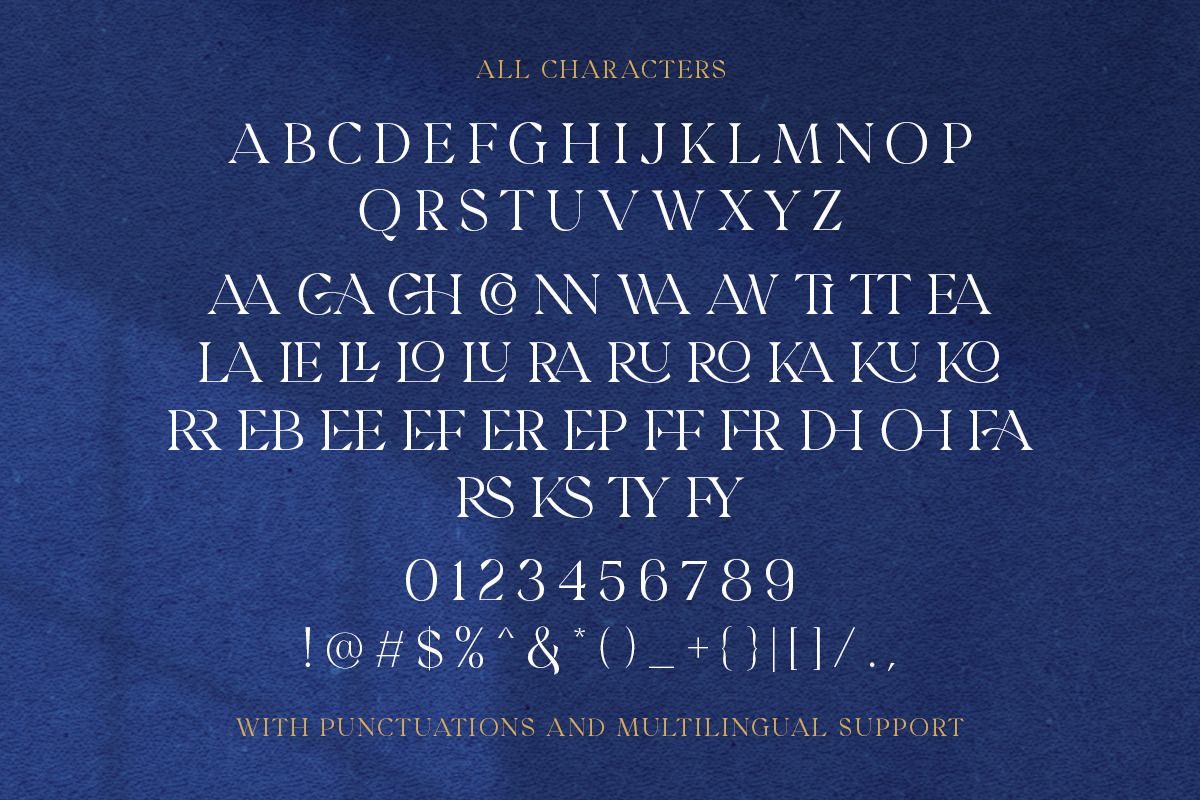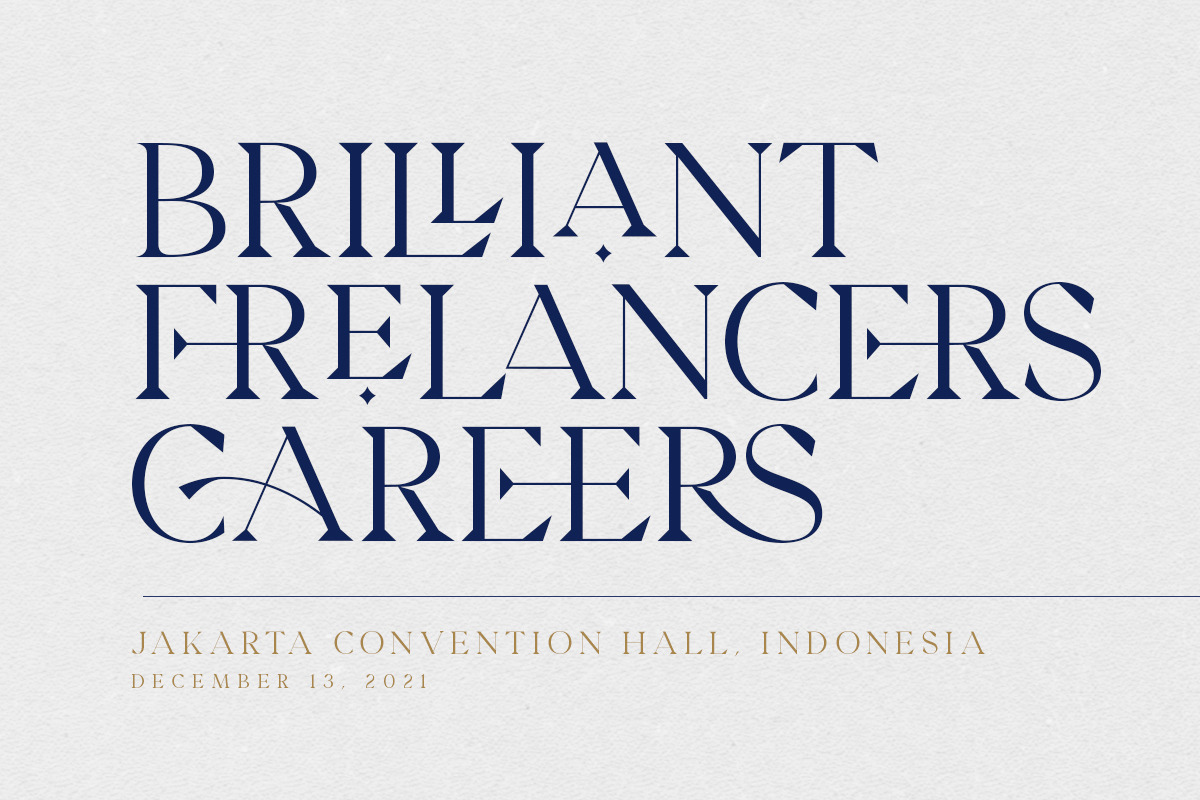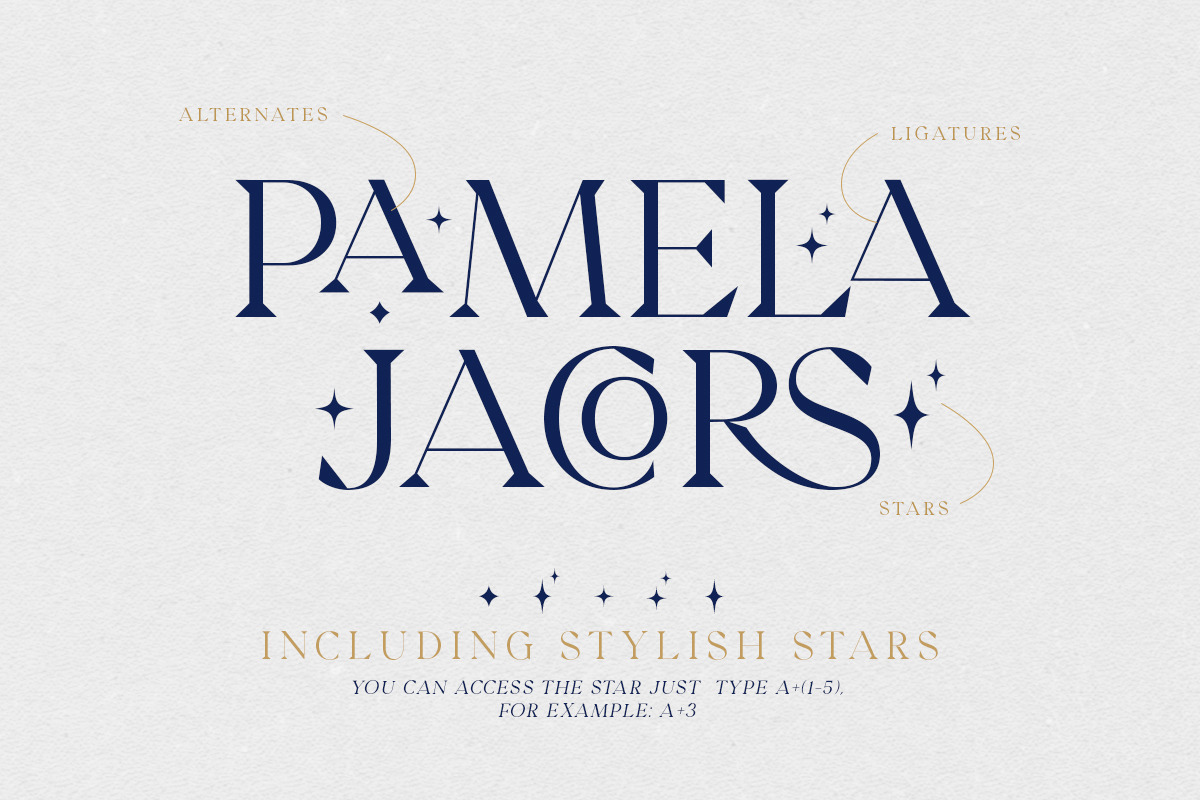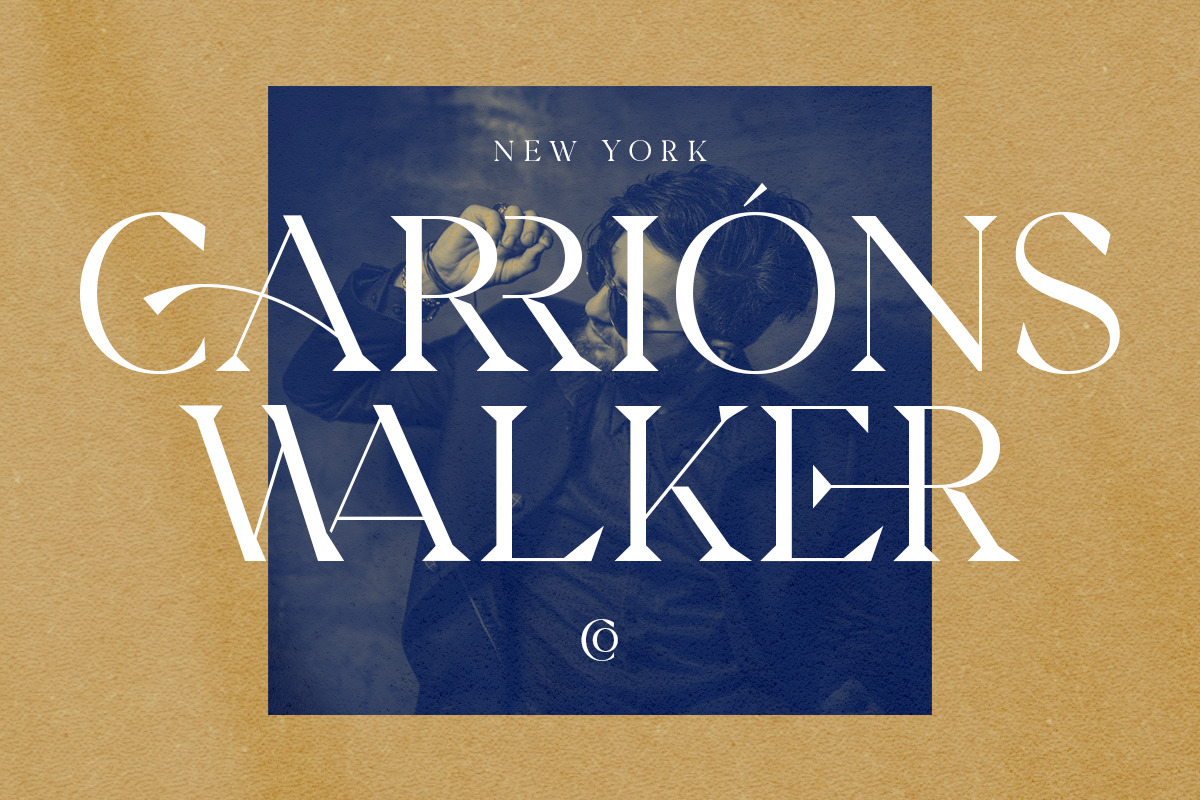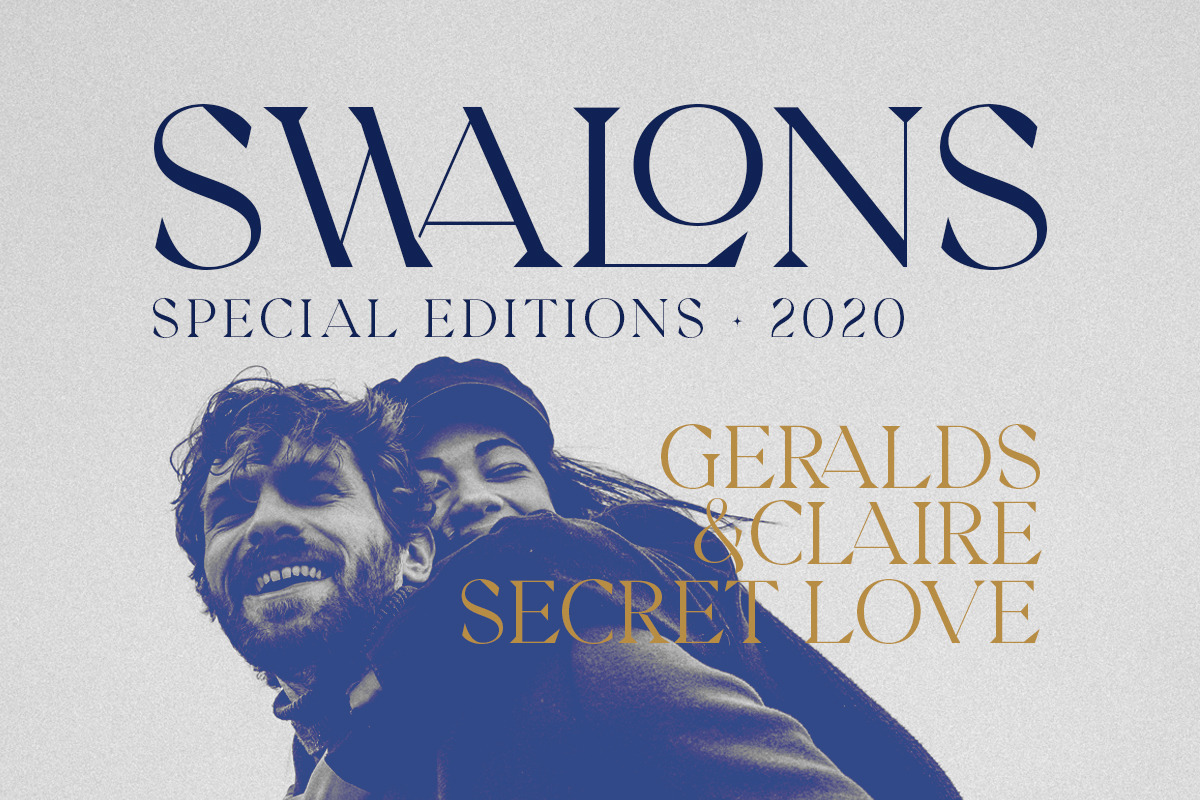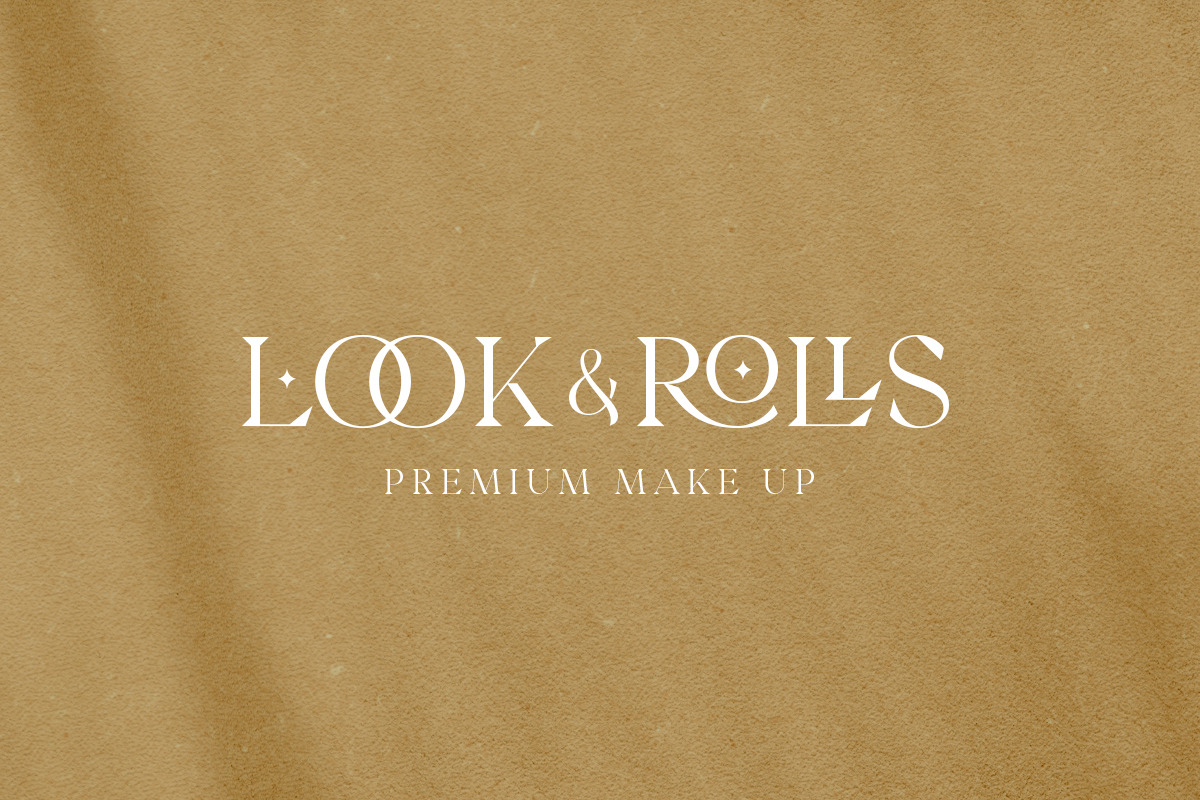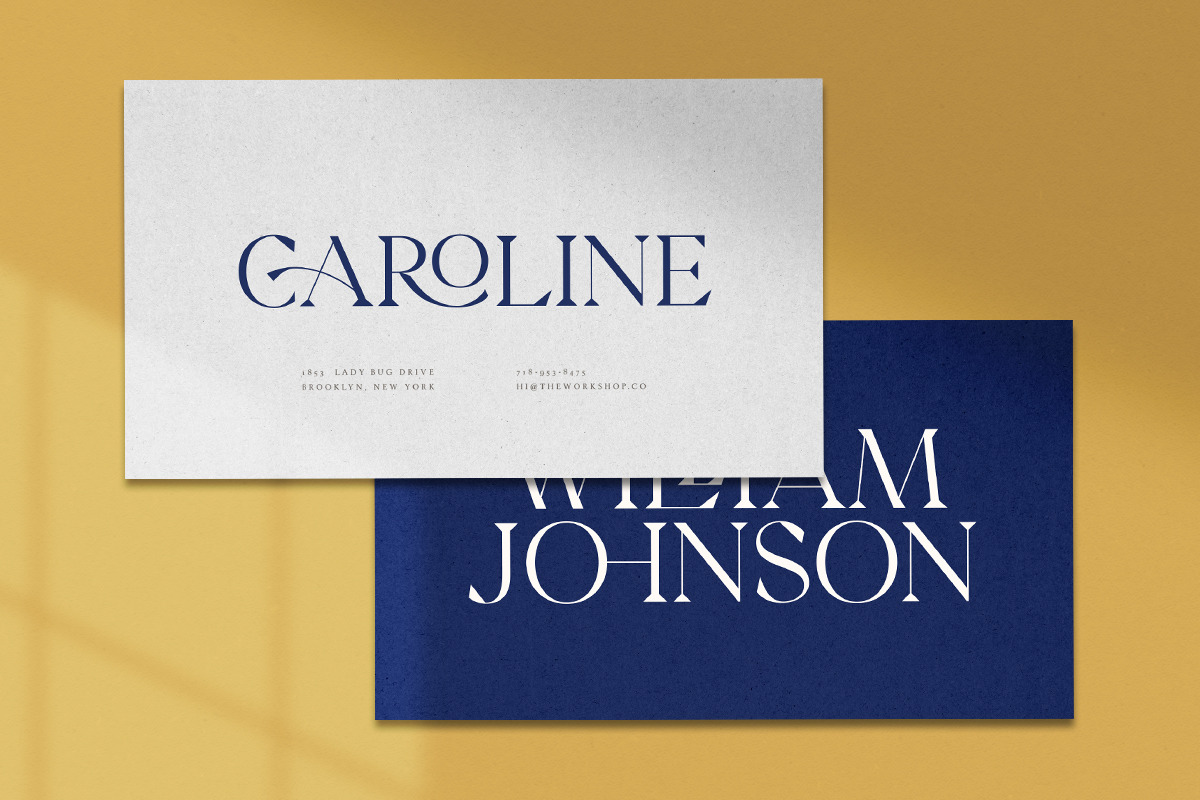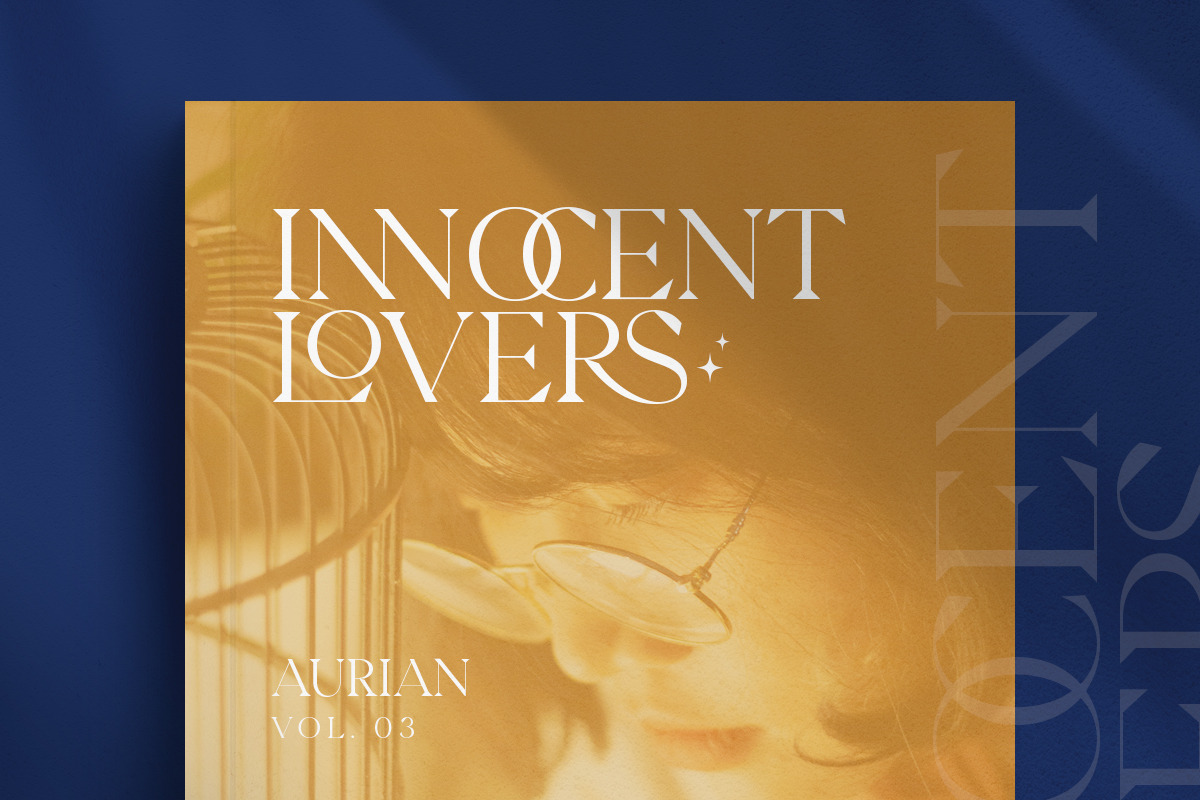
Roger & Lavienna - Ligature Serif
Introducing, Roger & Lavienna - Modern Serif with a bunch of ligatures!
Roger & Lavienna is a classic and modern serif font that contains a bunch of gorgeous ligatures that will make your design, presentation or logo even more stunning and stand out! This font also contain stylish stars that will make your project sparkling and more interesting. You can access the stars by typing A+(Number 1-5). This fonts support Multi Language and already PUA Encoded!
- All Caps
- Multi Language